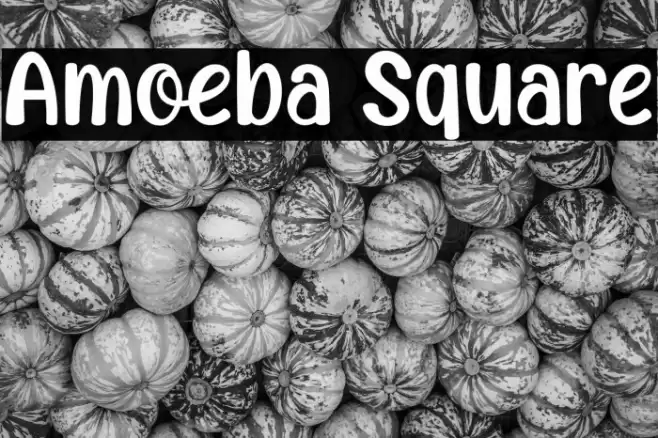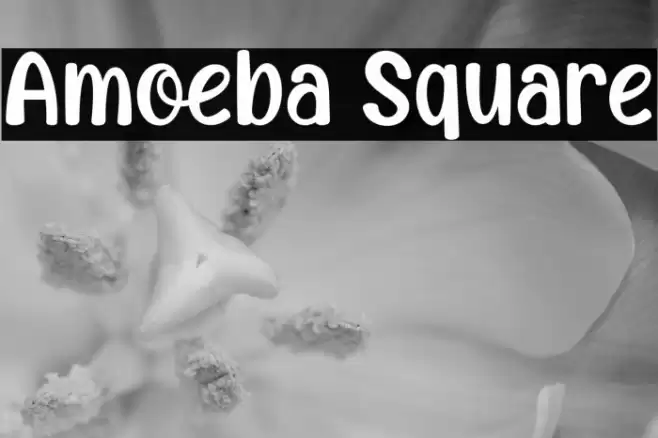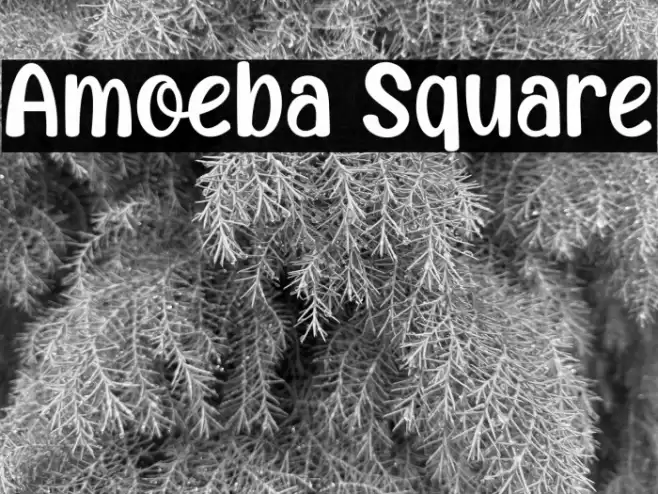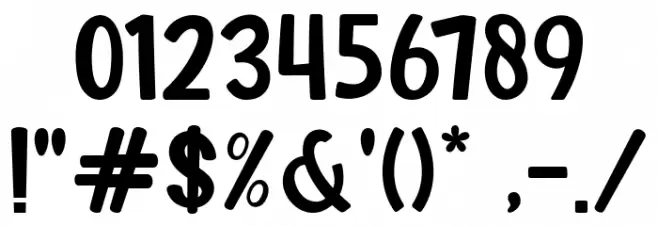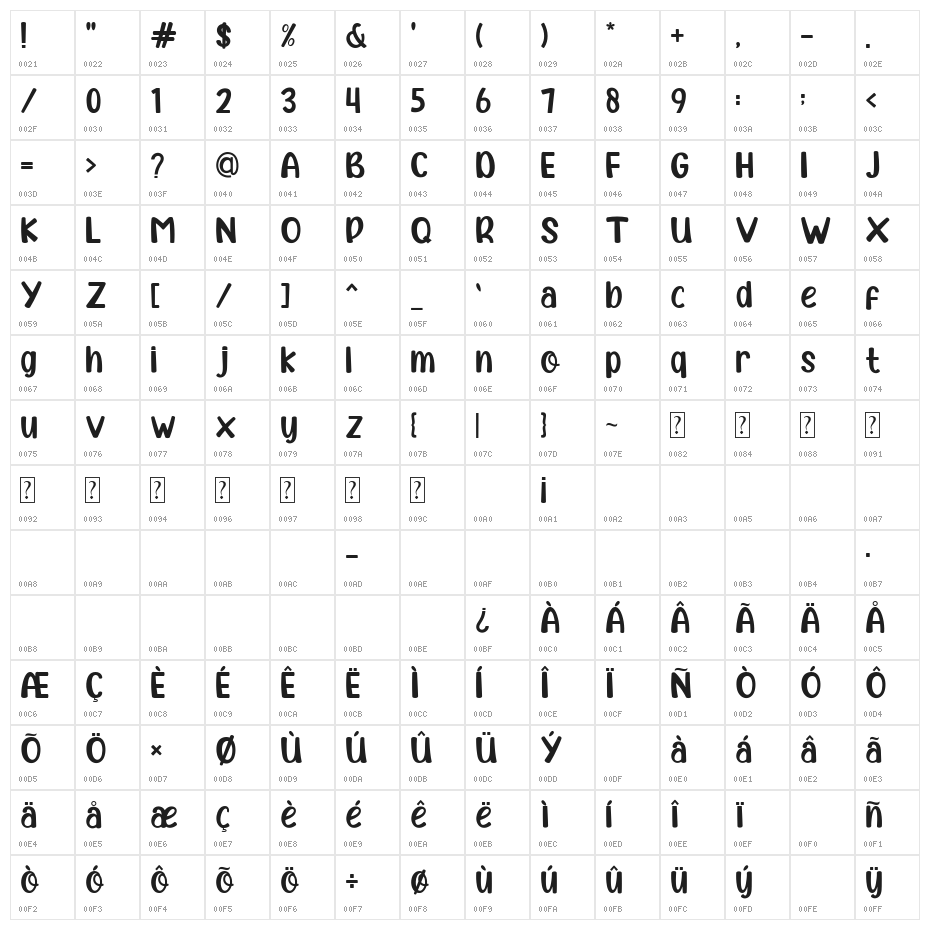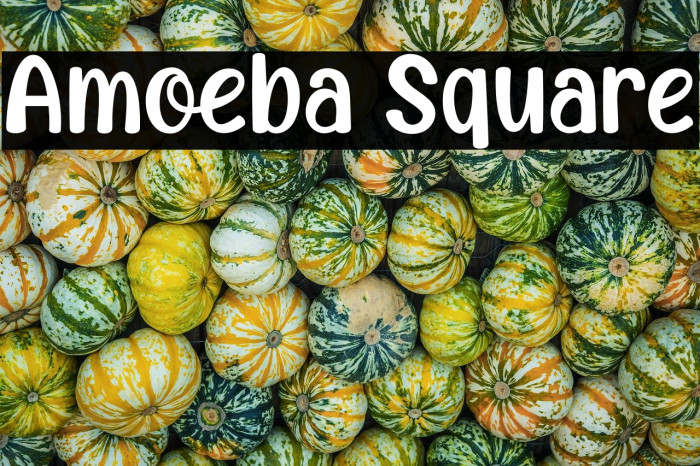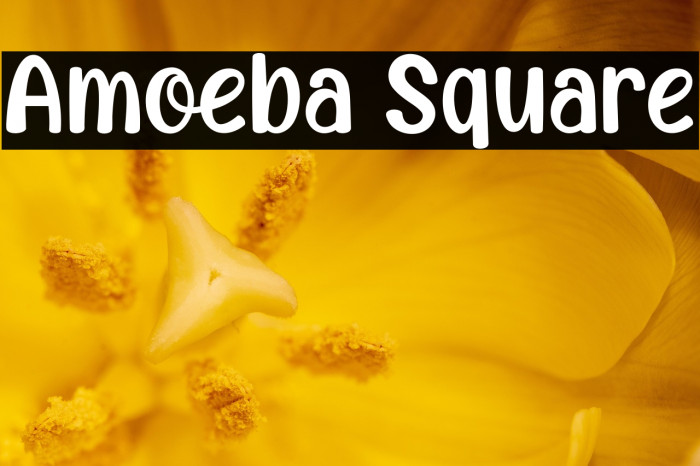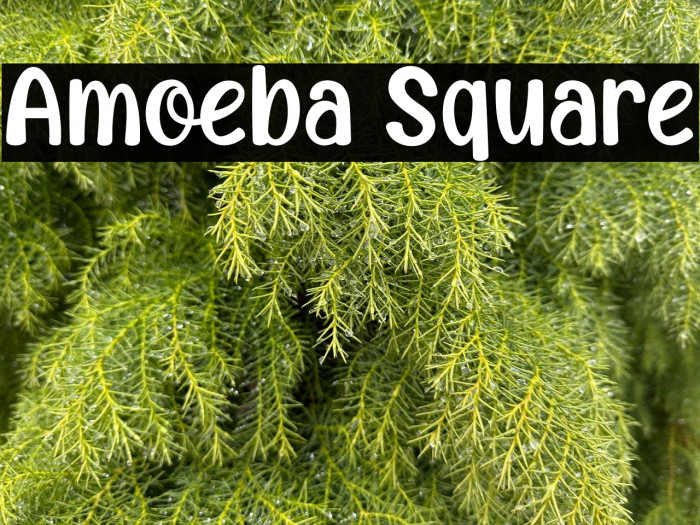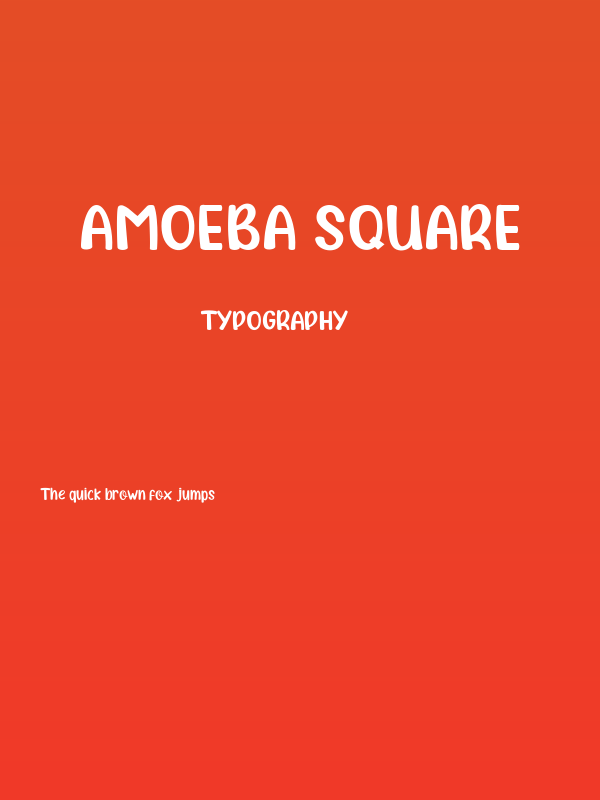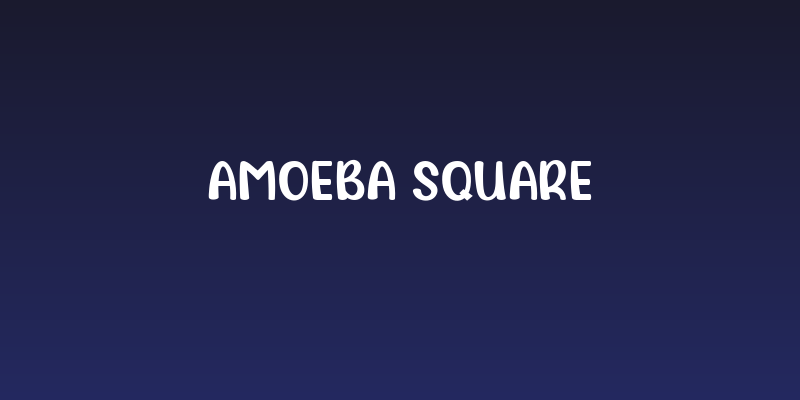
Amoeba Square Font
Amoeba Square Description
This playful and bold font features rounded, organic shapes that give it a friendly and approachable appearance. The characters are thick and slightly irregular, adding a whimsical touch to the overall design. The uppercase and lowercase letters maintain a consistent style, with smooth curves and a slightly condensed form. The numbers and special characters follow the same playful aesthetic, making this font versatile for various creative projects. Its unique style makes it stand out, perfect for designs that require a fun and informal vibe.
A playful, bold font with rounded, organic shapes and a whimsical touch from Regular fonts.
- Proposed Projects: Ideal for children's books, playful branding, greeting cards, and casual invitations.
- Overall Style: Playful, Whimsical